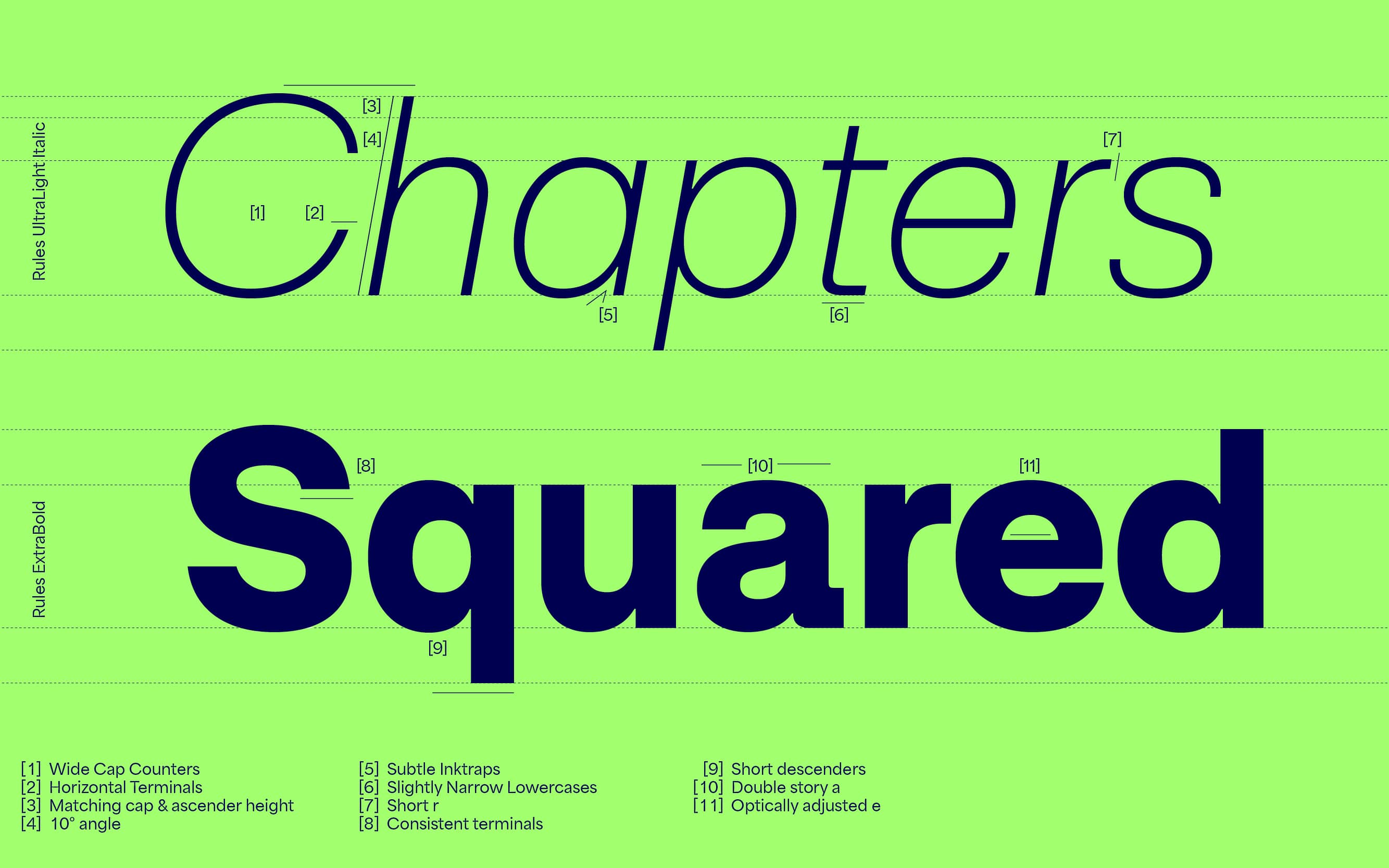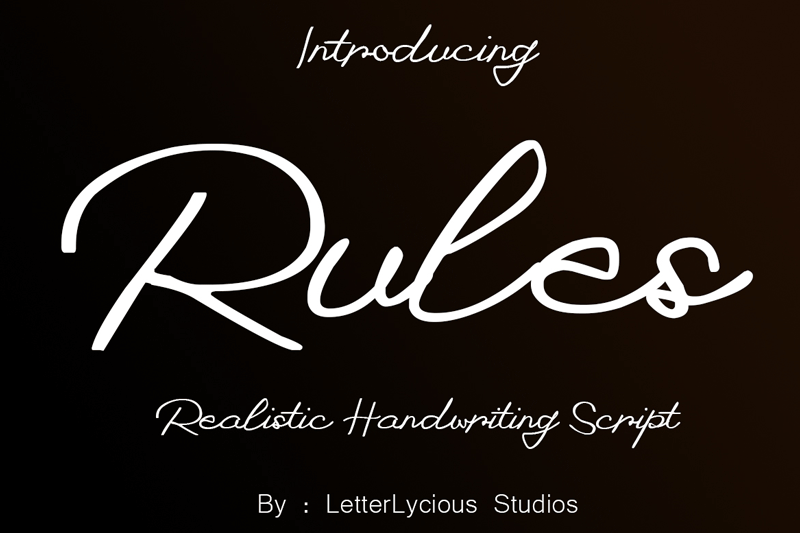
Best Font For Rules . They signify formality, readability, and persuasiveness in legal writing. A certain variation of a typeface family (e.g., arial bold, times new roman italic). The font you choose can make your legal documents look more professional and, when applicable, appeal to court standards. Here are the best legal fonts lawyers should use in legal documents, including the best font sizes and info about licensing fonts. I’ll even concede that there are situations, like emails and. Times new roman, arial, and helvetica are not just fonts; If you consider the alternatives in this chapter and still prefer times new roman or other system fonts, i won’t think less of you. It is used to describe.
A certain variation of a typeface family (e.g., arial bold, times new roman italic). The font you choose can make your legal documents look more professional and, when applicable, appeal to court standards. I’ll even concede that there are situations, like emails and. It is used to describe. Here are the best legal fonts lawyers should use in legal documents, including the best font sizes and info about licensing fonts. Times new roman, arial, and helvetica are not just fonts; They signify formality, readability, and persuasiveness in legal writing. If you consider the alternatives in this chapter and still prefer times new roman or other system fonts, i won’t think less of you.
Best Font For Rules The font you choose can make your legal documents look more professional and, when applicable, appeal to court standards. They signify formality, readability, and persuasiveness in legal writing. A certain variation of a typeface family (e.g., arial bold, times new roman italic). If you consider the alternatives in this chapter and still prefer times new roman or other system fonts, i won’t think less of you. Here are the best legal fonts lawyers should use in legal documents, including the best font sizes and info about licensing fonts. Times new roman, arial, and helvetica are not just fonts; The font you choose can make your legal documents look more professional and, when applicable, appeal to court standards. I’ll even concede that there are situations, like emails and. It is used to describe.
Rules free font Best Font For Rules I’ll even concede that there are situations, like emails and. The font you choose can make your legal documents look more professional and, when applicable, appeal to court standards. It is used to describe. Times new roman, arial, and helvetica are not just fonts; They signify formality, readability, and persuasiveness in legal writing. A certain variation of a typeface family. Best Font For Rules.
Best Fonts for Legal Documents Best Font For Rules They signify formality, readability, and persuasiveness in legal writing. Here are the best legal fonts lawyers should use in legal documents, including the best font sizes and info about licensing fonts. I’ll even concede that there are situations, like emails and. Times new roman, arial, and helvetica are not just fonts; A certain variation of a typeface family (e.g., arial. Best Font For Rules.
Rules free font Best Font For Rules Times new roman, arial, and helvetica are not just fonts; Here are the best legal fonts lawyers should use in legal documents, including the best font sizes and info about licensing fonts. They signify formality, readability, and persuasiveness in legal writing. I’ll even concede that there are situations, like emails and. A certain variation of a typeface family (e.g., arial. Best Font For Rules.
Rules free font Best Font For Rules The font you choose can make your legal documents look more professional and, when applicable, appeal to court standards. It is used to describe. Times new roman, arial, and helvetica are not just fonts; A certain variation of a typeface family (e.g., arial bold, times new roman italic). I’ll even concede that there are situations, like emails and. They signify. Best Font For Rules.
Rules Font Best Font For Rules They signify formality, readability, and persuasiveness in legal writing. A certain variation of a typeface family (e.g., arial bold, times new roman italic). I’ll even concede that there are situations, like emails and. If you consider the alternatives in this chapter and still prefer times new roman or other system fonts, i won’t think less of you. The font you. Best Font For Rules.
36 Font Styles to Consider When Branding Your Business or Blog Best Font For Rules It is used to describe. The font you choose can make your legal documents look more professional and, when applicable, appeal to court standards. A certain variation of a typeface family (e.g., arial bold, times new roman italic). Times new roman, arial, and helvetica are not just fonts; Here are the best legal fonts lawyers should use in legal documents,. Best Font For Rules.
Rules Font Download Best Font For Rules A certain variation of a typeface family (e.g., arial bold, times new roman italic). Here are the best legal fonts lawyers should use in legal documents, including the best font sizes and info about licensing fonts. They signify formality, readability, and persuasiveness in legal writing. If you consider the alternatives in this chapter and still prefer times new roman or. Best Font For Rules.
From sketchdeck.com
How to combine fonts—rules, tips and tricks Best Font For Rules A certain variation of a typeface family (e.g., arial bold, times new roman italic). Here are the best legal fonts lawyers should use in legal documents, including the best font sizes and info about licensing fonts. It is used to describe. The font you choose can make your legal documents look more professional and, when applicable, appeal to court standards.. Best Font For Rules.
From fifthessencejewelry.com
The Best Font Rules for Email Readability Fifth Essence Jewelry Best Font For Rules The font you choose can make your legal documents look more professional and, when applicable, appeal to court standards. It is used to describe. I’ll even concede that there are situations, like emails and. Here are the best legal fonts lawyers should use in legal documents, including the best font sizes and info about licensing fonts. Times new roman, arial,. Best Font For Rules.
From littlegoldpixel.com
5 Simple Font Rules • Design HowTo • Little Gold Pixel Best Font For Rules I’ll even concede that there are situations, like emails and. They signify formality, readability, and persuasiveness in legal writing. The font you choose can make your legal documents look more professional and, when applicable, appeal to court standards. It is used to describe. A certain variation of a typeface family (e.g., arial bold, times new roman italic). Times new roman,. Best Font For Rules.
Rules Font Letterlycious FontSpace Best Font For Rules If you consider the alternatives in this chapter and still prefer times new roman or other system fonts, i won’t think less of you. A certain variation of a typeface family (e.g., arial bold, times new roman italic). I’ll even concede that there are situations, like emails and. Times new roman, arial, and helvetica are not just fonts; The font. Best Font For Rules.
The Top Six free font pairings perfect for your blog or social media Best Font For Rules Here are the best legal fonts lawyers should use in legal documents, including the best font sizes and info about licensing fonts. If you consider the alternatives in this chapter and still prefer times new roman or other system fonts, i won’t think less of you. I’ll even concede that there are situations, like emails and. The font you choose. Best Font For Rules.
18 rules for using text Typography Creative Bloq Best Font For Rules If you consider the alternatives in this chapter and still prefer times new roman or other system fonts, i won’t think less of you. The font you choose can make your legal documents look more professional and, when applicable, appeal to court standards. Here are the best legal fonts lawyers should use in legal documents, including the best font sizes. Best Font For Rules.
Best Font For Letters Enhance Your Designs Best Font For Rules A certain variation of a typeface family (e.g., arial bold, times new roman italic). Here are the best legal fonts lawyers should use in legal documents, including the best font sizes and info about licensing fonts. The font you choose can make your legal documents look more professional and, when applicable, appeal to court standards. I’ll even concede that there. Best Font For Rules.
RULES Font DisplayStudio_ FontSpace Best Font For Rules A certain variation of a typeface family (e.g., arial bold, times new roman italic). I’ll even concede that there are situations, like emails and. It is used to describe. The font you choose can make your legal documents look more professional and, when applicable, appeal to court standards. Times new roman, arial, and helvetica are not just fonts; They signify. Best Font For Rules.
Rules Regular font Free fonts on Creazilla Best Font For Rules Times new roman, arial, and helvetica are not just fonts; Here are the best legal fonts lawyers should use in legal documents, including the best font sizes and info about licensing fonts. I’ll even concede that there are situations, like emails and. A certain variation of a typeface family (e.g., arial bold, times new roman italic). The font you choose. Best Font For Rules.
Simple Font Design Rules With New Ideas Typography Art Ideas Best Font For Rules Times new roman, arial, and helvetica are not just fonts; I’ll even concede that there are situations, like emails and. If you consider the alternatives in this chapter and still prefer times new roman or other system fonts, i won’t think less of you. It is used to describe. A certain variation of a typeface family (e.g., arial bold, times. Best Font For Rules.
From cgfrog.com
Font Combining Principles Top 10 Font Combinations Golden Rules Best Font For Rules A certain variation of a typeface family (e.g., arial bold, times new roman italic). Times new roman, arial, and helvetica are not just fonts; They signify formality, readability, and persuasiveness in legal writing. Here are the best legal fonts lawyers should use in legal documents, including the best font sizes and info about licensing fonts. I’ll even concede that there. Best Font For Rules.
Rules font by Letter Lycious FontRiver Best Font For Rules It is used to describe. The font you choose can make your legal documents look more professional and, when applicable, appeal to court standards. I’ll even concede that there are situations, like emails and. If you consider the alternatives in this chapter and still prefer times new roman or other system fonts, i won’t think less of you. They signify. Best Font For Rules.
From blazetype.eu
Rules font A modern Neogrotesque font with an edge French Type Best Font For Rules Times new roman, arial, and helvetica are not just fonts; The font you choose can make your legal documents look more professional and, when applicable, appeal to court standards. If you consider the alternatives in this chapter and still prefer times new roman or other system fonts, i won’t think less of you. They signify formality, readability, and persuasiveness in. Best Font For Rules.
Rule 4 Find some kind of relationship between shapes. Pay attention Best Font For Rules The font you choose can make your legal documents look more professional and, when applicable, appeal to court standards. Times new roman, arial, and helvetica are not just fonts; A certain variation of a typeface family (e.g., arial bold, times new roman italic). It is used to describe. Here are the best legal fonts lawyers should use in legal documents,. Best Font For Rules.
RULES Font Download Free for Desktop & font Best Font For Rules I’ll even concede that there are situations, like emails and. Times new roman, arial, and helvetica are not just fonts; If you consider the alternatives in this chapter and still prefer times new roman or other system fonts, i won’t think less of you. A certain variation of a typeface family (e.g., arial bold, times new roman italic). The font. Best Font For Rules.
From www.designmantic.com
How to find the perfect font pair for your design with these rules Best Font For Rules Here are the best legal fonts lawyers should use in legal documents, including the best font sizes and info about licensing fonts. A certain variation of a typeface family (e.g., arial bold, times new roman italic). They signify formality, readability, and persuasiveness in legal writing. The font you choose can make your legal documents look more professional and, when applicable,. Best Font For Rules.
School Rules Font (Teacher Fonts, School Fonts, Learning Fonts) By Salt Best Font For Rules A certain variation of a typeface family (e.g., arial bold, times new roman italic). If you consider the alternatives in this chapter and still prefer times new roman or other system fonts, i won’t think less of you. I’ll even concede that there are situations, like emails and. It is used to describe. They signify formality, readability, and persuasiveness in. Best Font For Rules.
Choosing the Perfect Fonts for Your site 20 Best Font Pairings for Best Font For Rules The font you choose can make your legal documents look more professional and, when applicable, appeal to court standards. Here are the best legal fonts lawyers should use in legal documents, including the best font sizes and info about licensing fonts. Times new roman, arial, and helvetica are not just fonts; I’ll even concede that there are situations, like emails. Best Font For Rules.
24+ Great Fonts for Posters FilterGrade Best Font For Rules If you consider the alternatives in this chapter and still prefer times new roman or other system fonts, i won’t think less of you. It is used to describe. The font you choose can make your legal documents look more professional and, when applicable, appeal to court standards. They signify formality, readability, and persuasiveness in legal writing. I’ll even concede. Best Font For Rules.
9 golden rules for combining fonts Creative Bloq Best Font For Rules It is used to describe. I’ll even concede that there are situations, like emails and. If you consider the alternatives in this chapter and still prefer times new roman or other system fonts, i won’t think less of you. Times new roman, arial, and helvetica are not just fonts; Here are the best legal fonts lawyers should use in legal. Best Font For Rules.
New Rules Font download free Best Font For Rules It is used to describe. If you consider the alternatives in this chapter and still prefer times new roman or other system fonts, i won’t think less of you. A certain variation of a typeface family (e.g., arial bold, times new roman italic). The font you choose can make your legal documents look more professional and, when applicable, appeal to. Best Font For Rules.
Typography Rules You Should Know as a Designer Playground Best Font For Rules They signify formality, readability, and persuasiveness in legal writing. A certain variation of a typeface family (e.g., arial bold, times new roman italic). Here are the best legal fonts lawyers should use in legal documents, including the best font sizes and info about licensing fonts. Times new roman, arial, and helvetica are not just fonts; I’ll even concede that there. Best Font For Rules.
From blog.uberprints.com
The Ultimate Guide To Font Pairing In TShirt Design UberPrints Best Font For Rules They signify formality, readability, and persuasiveness in legal writing. Here are the best legal fonts lawyers should use in legal documents, including the best font sizes and info about licensing fonts. The font you choose can make your legal documents look more professional and, when applicable, appeal to court standards. Times new roman, arial, and helvetica are not just fonts;. Best Font For Rules.
Rules Font Letterlycious FontSpace Best Font For Rules If you consider the alternatives in this chapter and still prefer times new roman or other system fonts, i won’t think less of you. Times new roman, arial, and helvetica are not just fonts; The font you choose can make your legal documents look more professional and, when applicable, appeal to court standards. I’ll even concede that there are situations,. Best Font For Rules.
From growlawfirm.com
Best fonts for legal documents a complete guide Best Font For Rules Times new roman, arial, and helvetica are not just fonts; It is used to describe. They signify formality, readability, and persuasiveness in legal writing. I’ll even concede that there are situations, like emails and. The font you choose can make your legal documents look more professional and, when applicable, appeal to court standards. Here are the best legal fonts lawyers. Best Font For Rules.
From blkbk.ink
New Rules Hand Drawn Font BLKBK Fonts Best Font For Rules A certain variation of a typeface family (e.g., arial bold, times new roman italic). They signify formality, readability, and persuasiveness in legal writing. I’ll even concede that there are situations, like emails and. If you consider the alternatives in this chapter and still prefer times new roman or other system fonts, i won’t think less of you. It is used. Best Font For Rules.